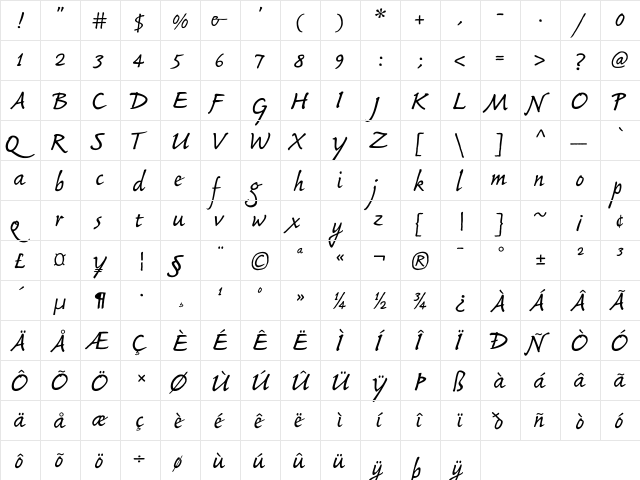
AIBouwsmaScript Regular
Design Context for AIBouwsmaScript Typeface
AIBouwsmaScript flows with the natural rhythm of handwritten lettering, making it ideal for designs that call for warmth and personal expression.
Font Pairing: Combine AIBouwsmaScript with a simple geometric sans for maximum contrast — the tension between flowing curves and clean structure is a classic typographic pairing.
Pro Tip: Use AIBouwsmaScript for short runs of text — names, titles, or taglines. Extended body copy in script faces tires the eye quickly.